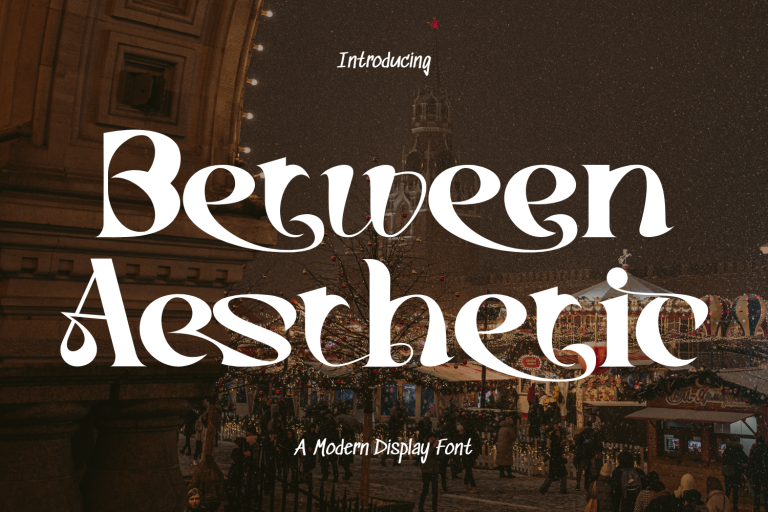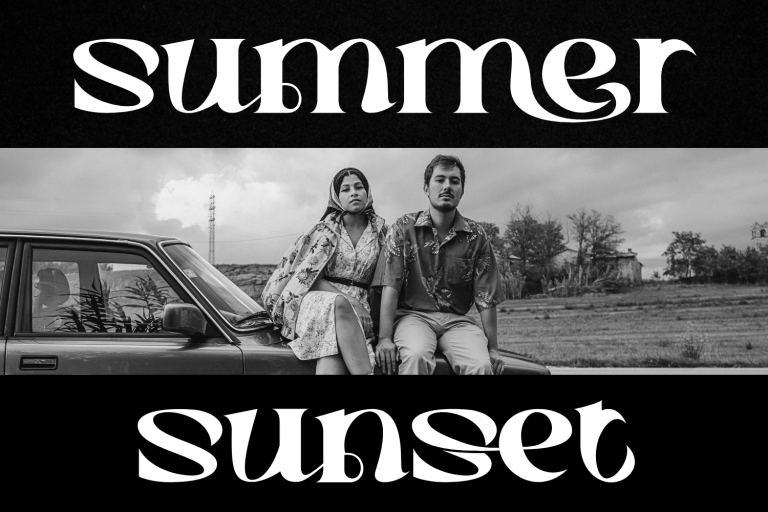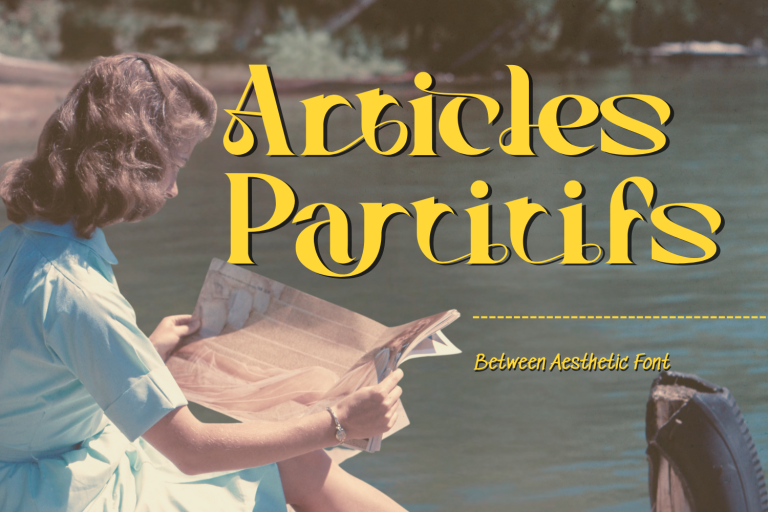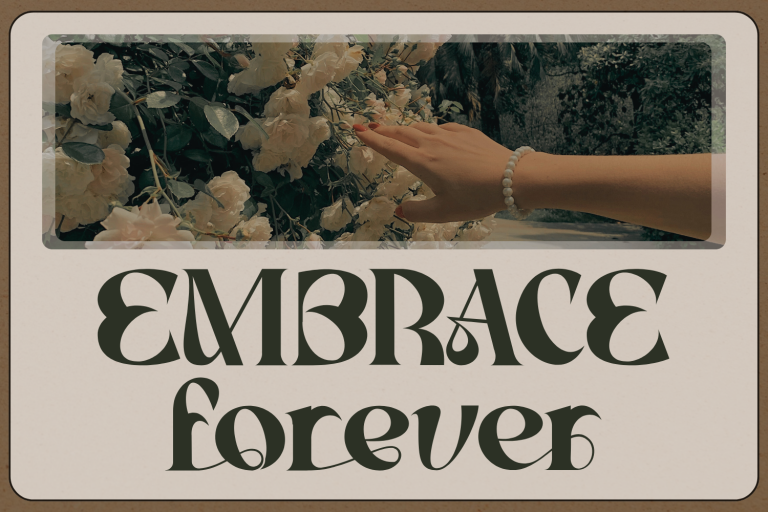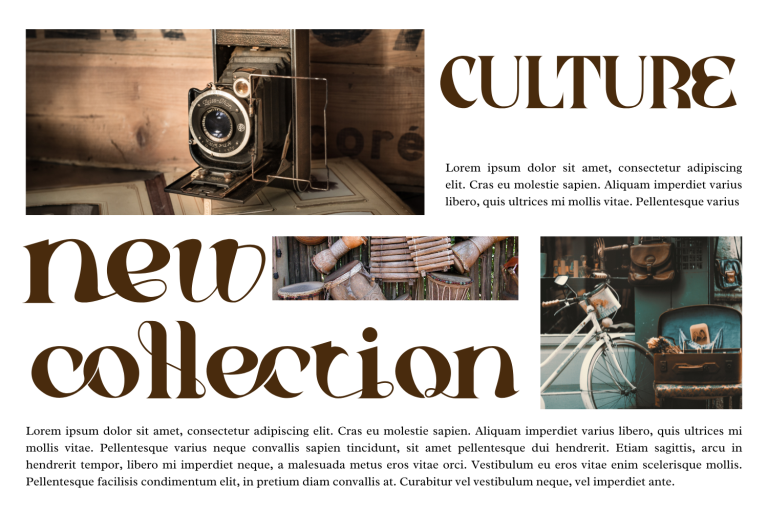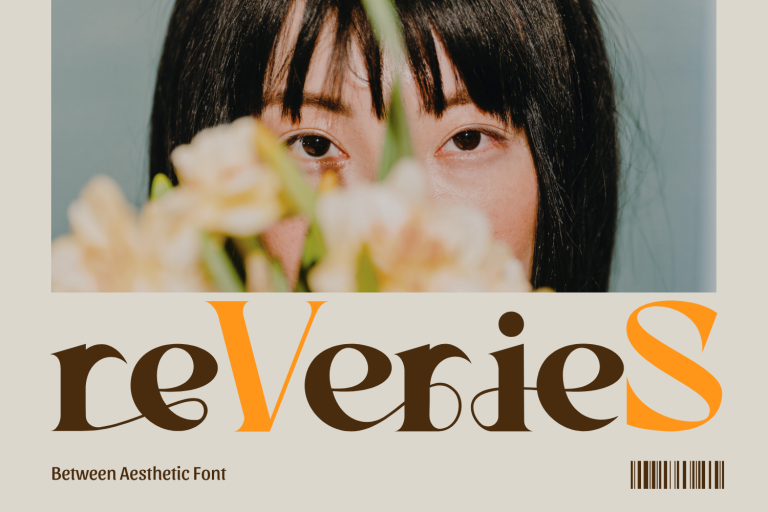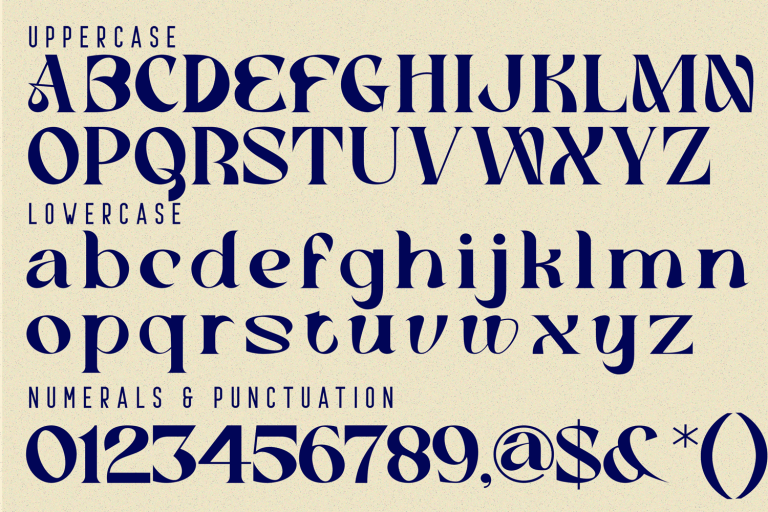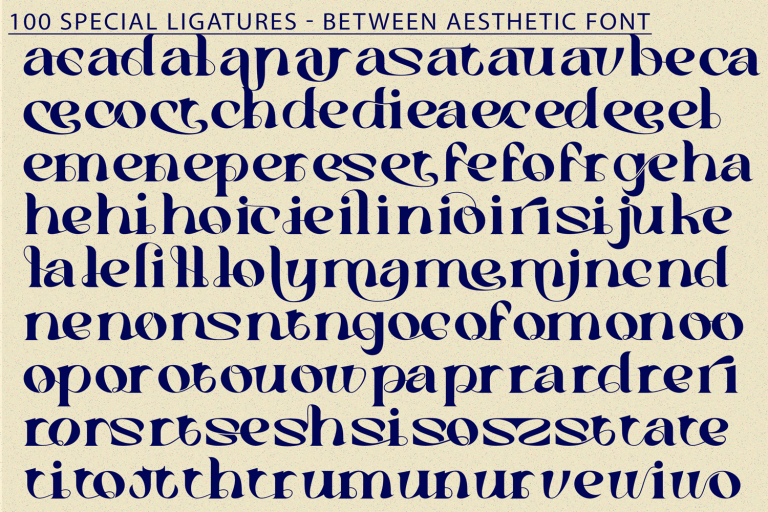
Between Aesthetic Font – Elegant Retro Serif with Teardrop Terminals & Soft Curves, is a stylish serif typeface that blends retro charm with modern sophistication. Featuring smooth curves, subtle stroke contrast, and distinctive teardrop terminals, this font delivers a unique and inviting personality to your designs. Perfect for branding, editorial layouts, packaging, wedding invitations, and high-end advertising, it offers both elegance and versatility. With over 100 custom ligatures, Between Aesthetic ensures natural letter connections and beautifully composed typography, allowing your text to feel as if it was crafted by hand.
🔤 Font Features:
• Uppercase and Lowercase Letters
• 100+ Special Ligatures for Unique Letter Combinations
• Multilingual Support with Accented Characters
• Soft Curves & Elegant Teardrop Terminals
• Balanced Retro-Modern Aesthetic
🔤 About 100 ligatures combined with Stylistic Alternates Font:
ac ad al an ar as at au av be ca ce ch co ct de di ea ec ed ee el em en ep er es et fe fo fr ge ha he hi ho ie ic il in io ir is it ju ke la le li ll lo ly ma me mi nc nd ne ng no nt ns oc of om on oo op or ot ou ow pa pr ra rd re ri ro rs rt se sh si so ss st ta te th ti to tr tt um un ur ve wi wo
Between Aesthetic Font